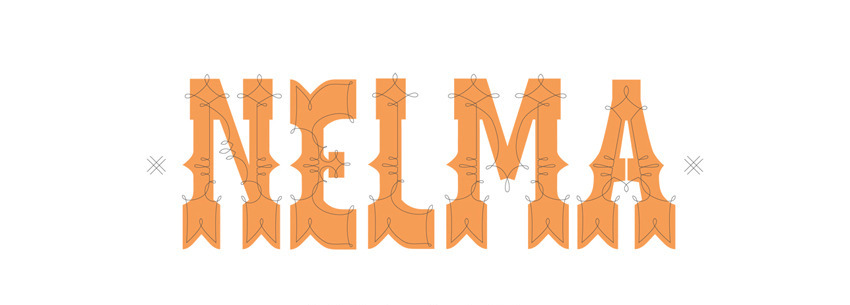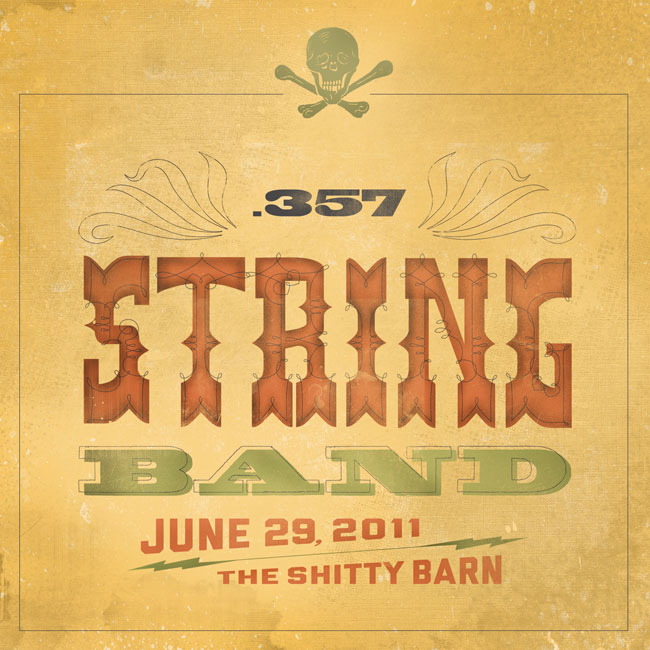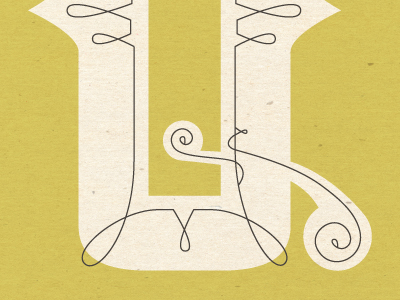
A delicately crafted display font with a lot of character, Nelma is perfect for setting beautiful type with an impact. This font is distributed as a .EPS file.